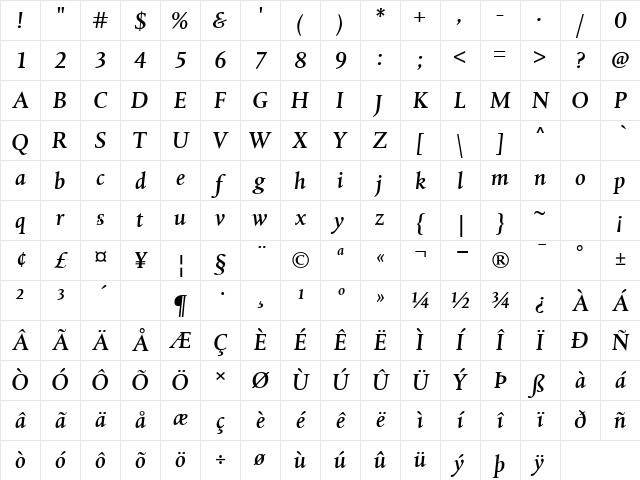
Albertina Dtl Medium Italic Regular
Design Context for Albertina Dtl Medium Italic
Albertina Dtl Medium Italic is a composed and adaptable typeface that performs quietly and consistently across a wide range of design contexts. The slanted form adds forward momentum and visual energy.
Pro Tip: Use Albertina Dtl Medium Italic for emphasis, pull quotes, and subheadings where its slanted energy can add rhythm to the layout.